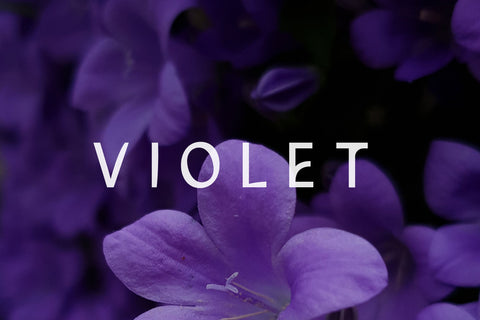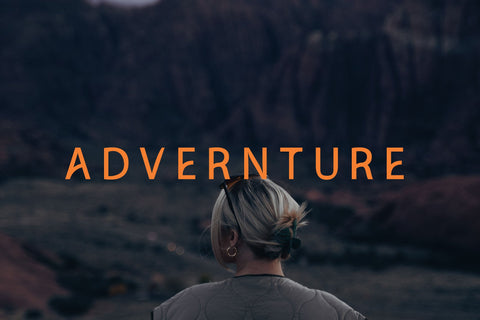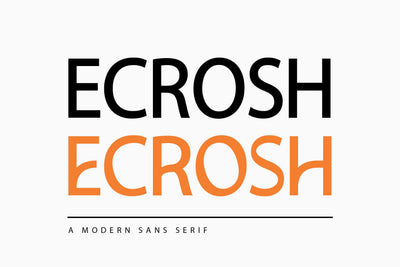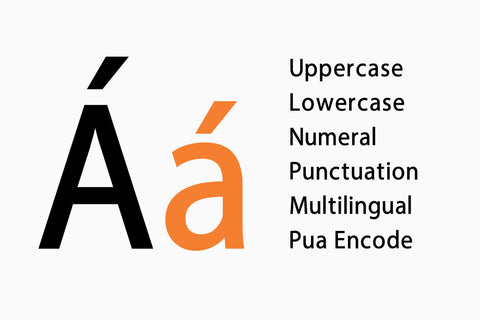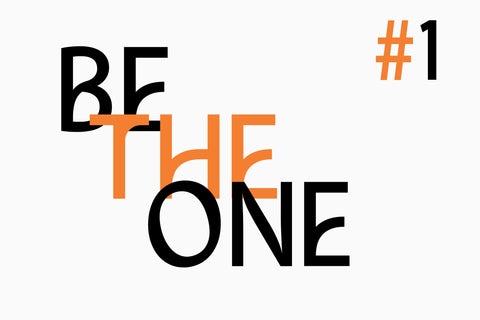
Ecrosh A Modern Sans Serif Font
Ecrosh is a minimal and neat sans serif font. It can easily be matched to an incredibly large set of projects, so add it to your creative ideas and notice how it makes them stand out!
– Uppercase, Lowercase, Numerals & Punctuations
– Alternates
– Multilingual support